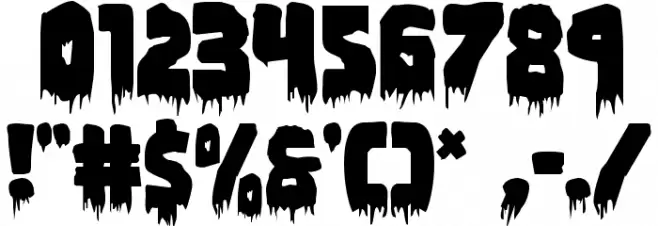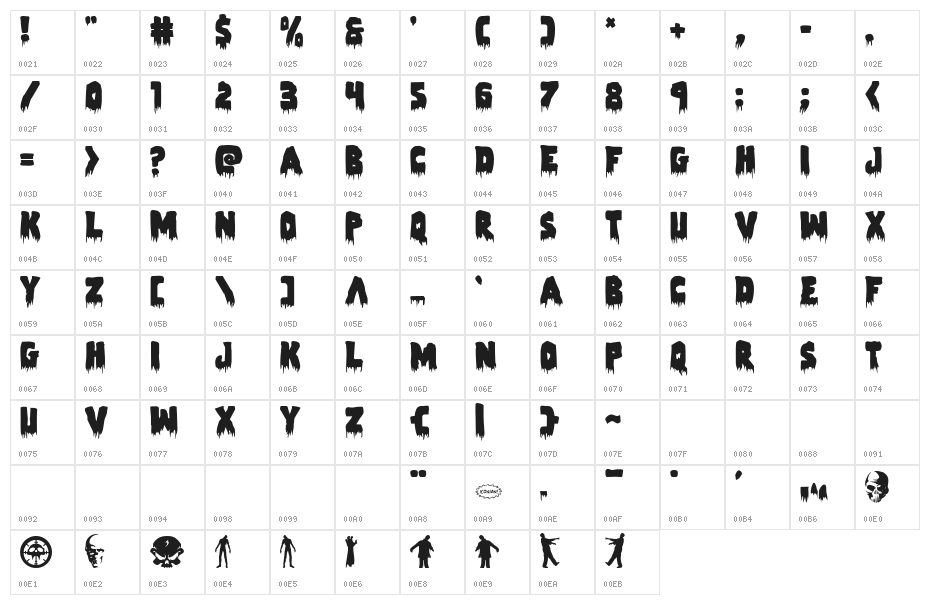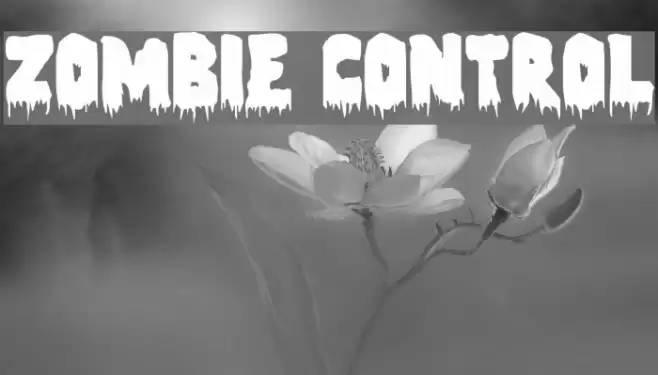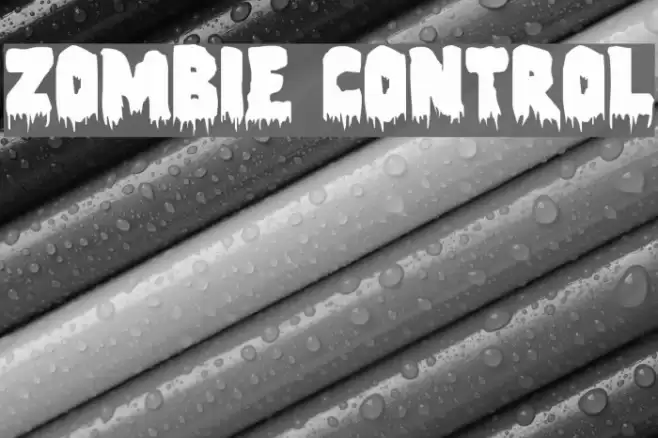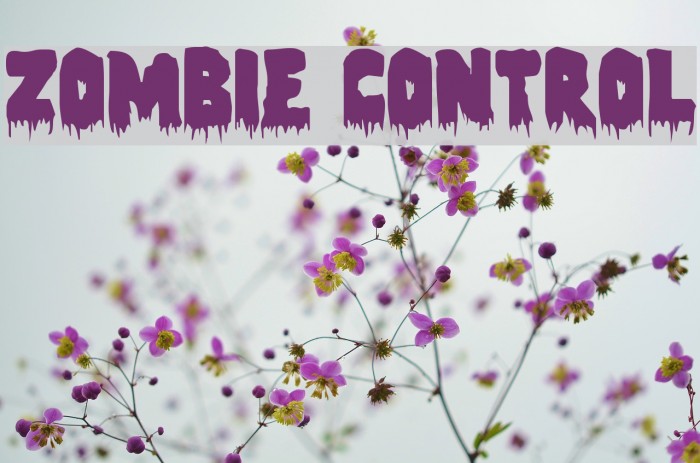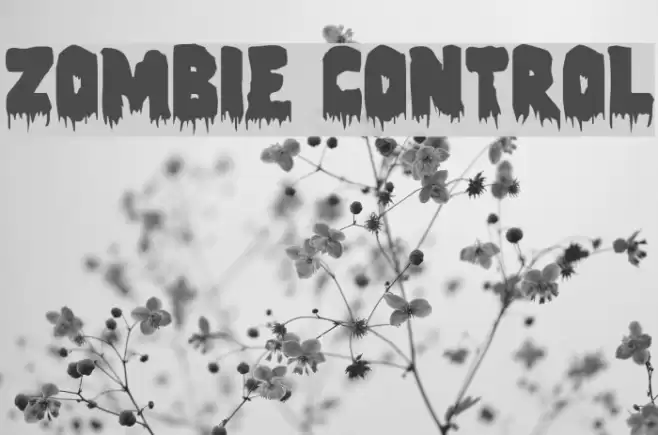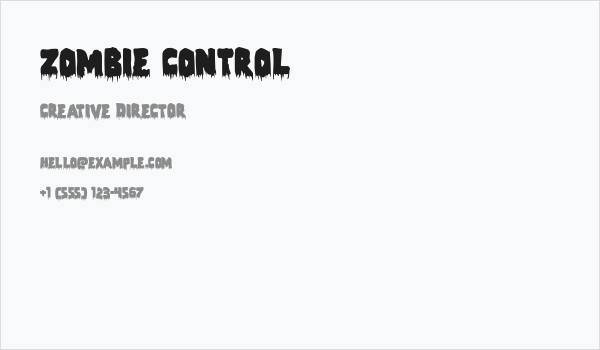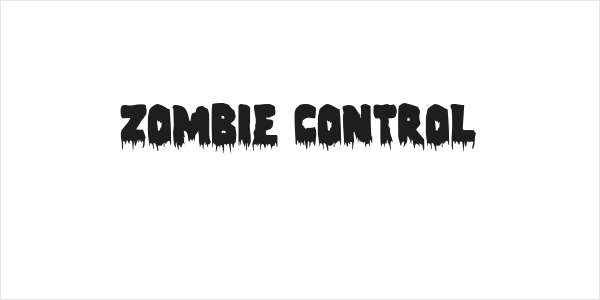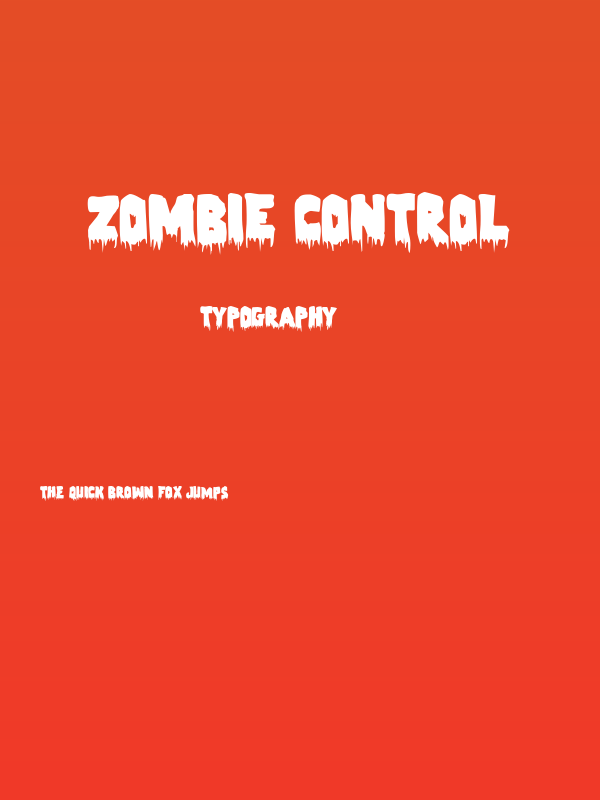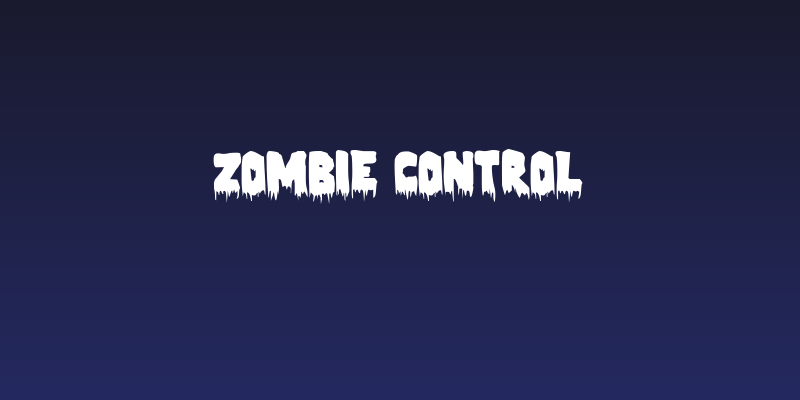
Zombie Control Font
Zombie Control Description
This font features a bold and dramatic style with a dripping effect that gives it a horror or Halloween-themed appearance. The characters are heavily stylized, with jagged edges and a sense of movement, as if they are melting or oozing. This creates a visually striking and unique look that is perfect for capturing attention. The uppercase and lowercase letters maintain a consistent design, ensuring readability while still emphasizing the font's thematic elements. The numbers and special characters follow the same aesthetic, making the font versatile for various uses. The overall design is both playful and eerie, making it ideal for projects that require a spooky or unconventional touch.
| Proposed Projects | Ideal for Halloween invitations, horror movie posters, themed event flyers, and spooky merchandise designs. |